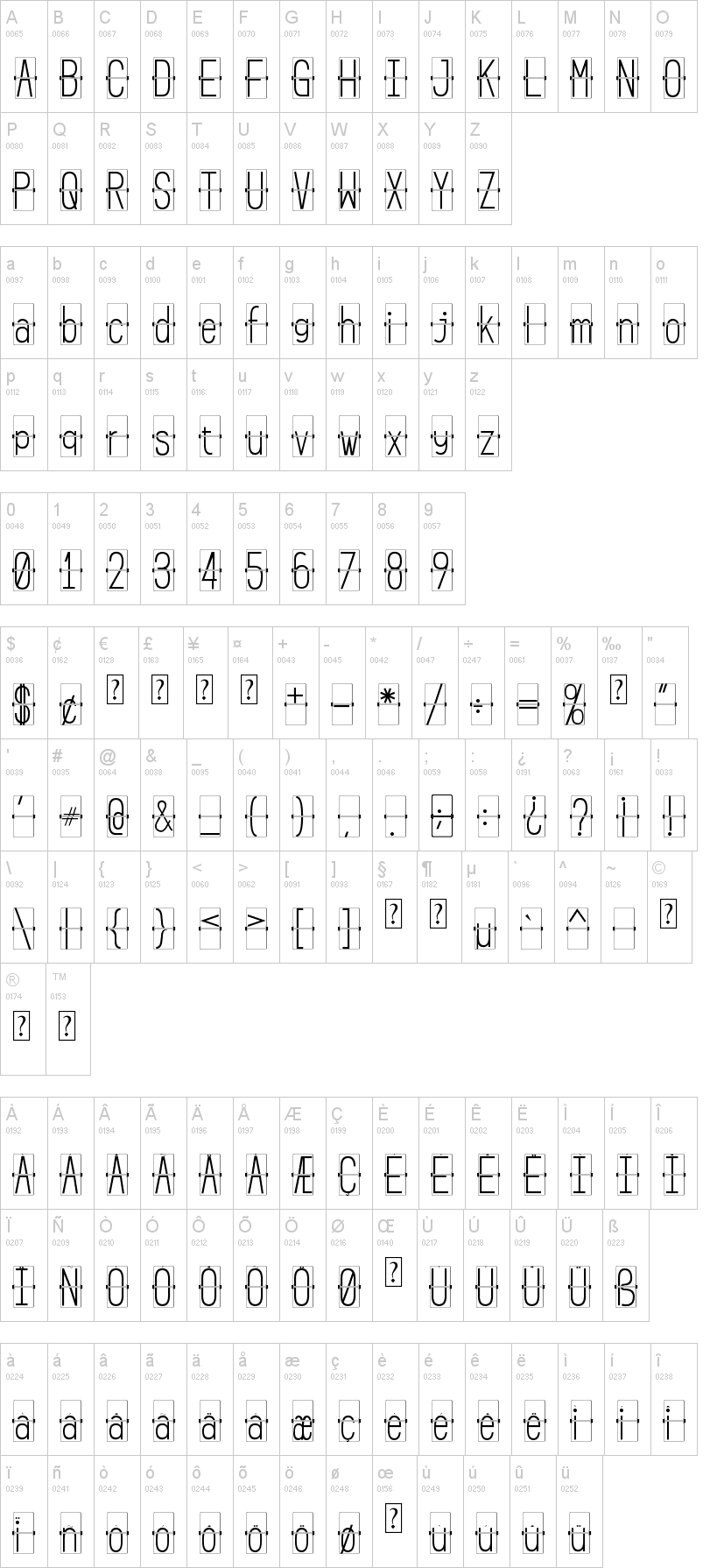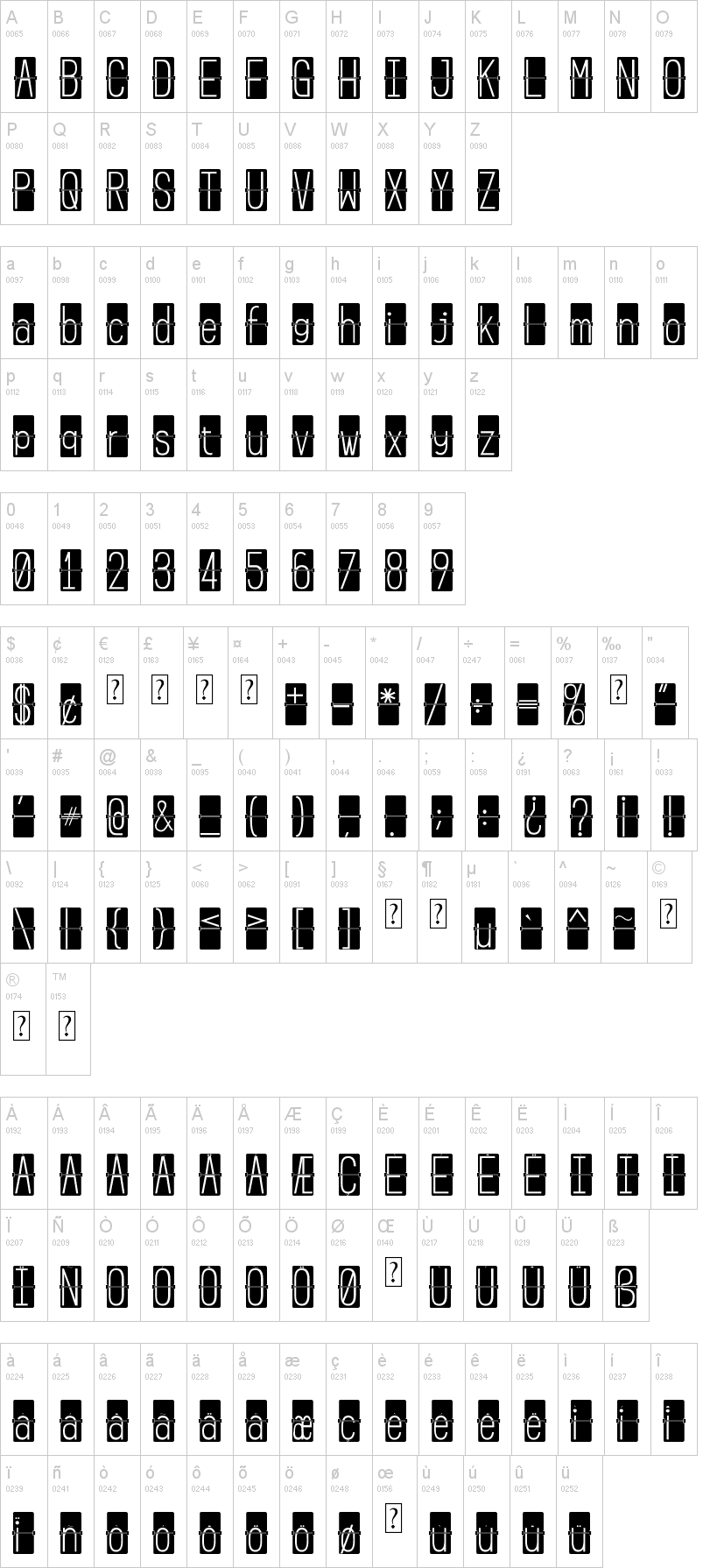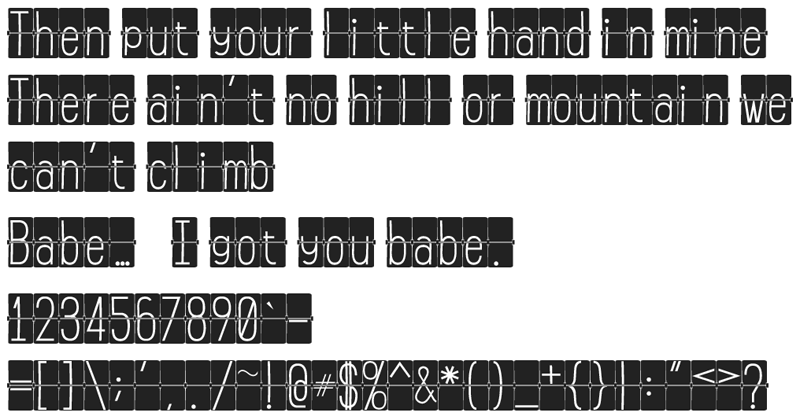
FLIPclockwhite.ttfNote of the authorRemember vintage flip clocks? Y'know, the clock that kept you up all night due to the 'CLICK!' every minute? Over and over...and over and over...time seemed to slow a bit as you waited for the next 'CLICK!'
Time to relive it - again, and again and again.